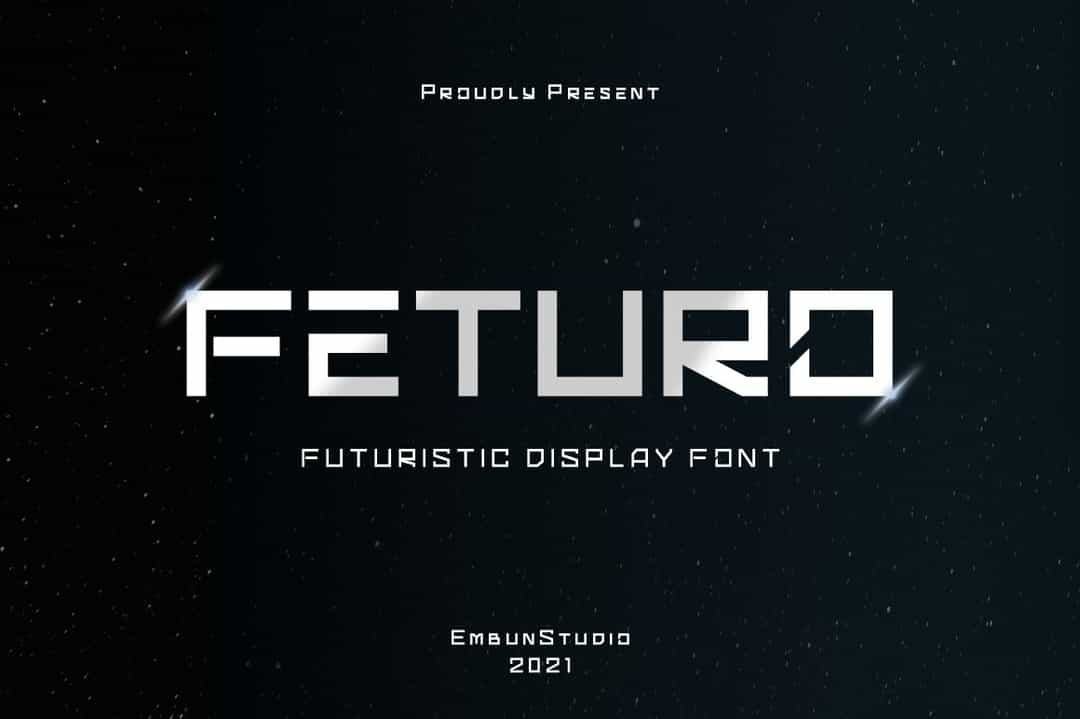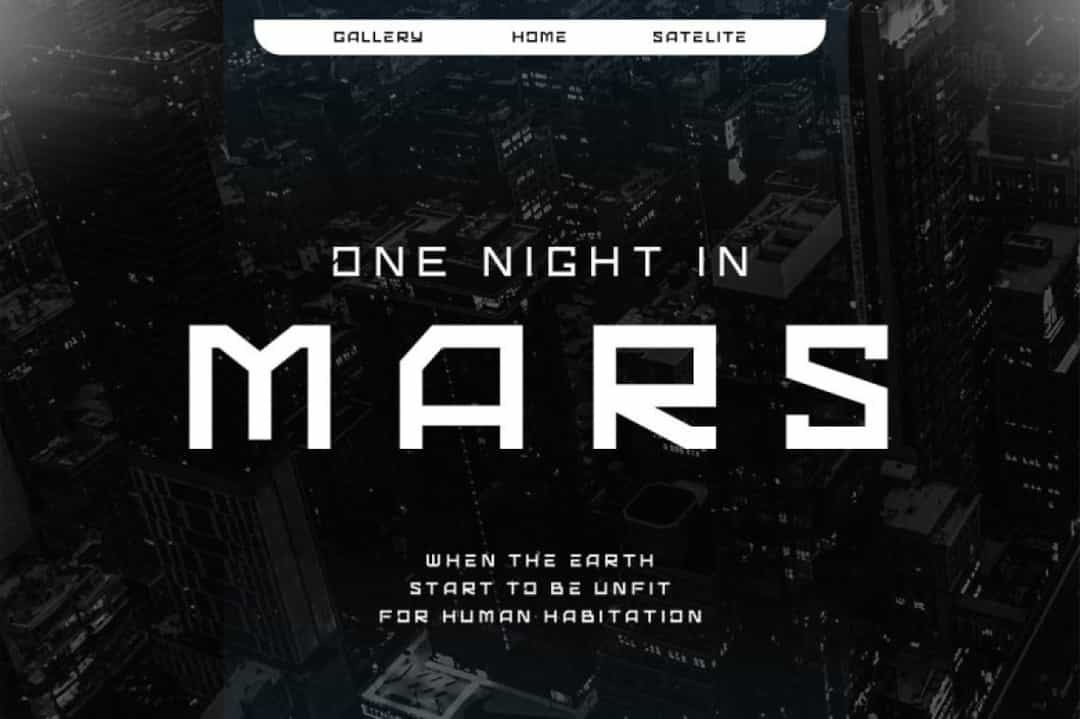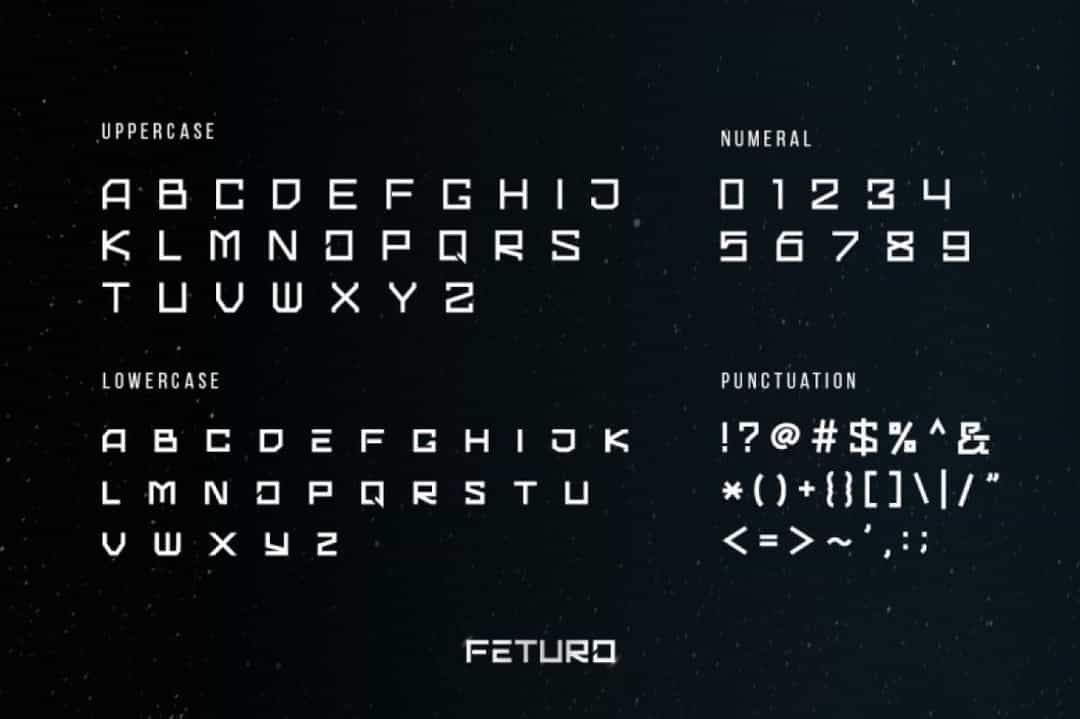
Feturo Display Font is an eye-catching modern, contemporary, and sleek display font, ideal for web designs, space/sport projects, or any project requiring large characters. Explore all its variations! Enjoy using it!